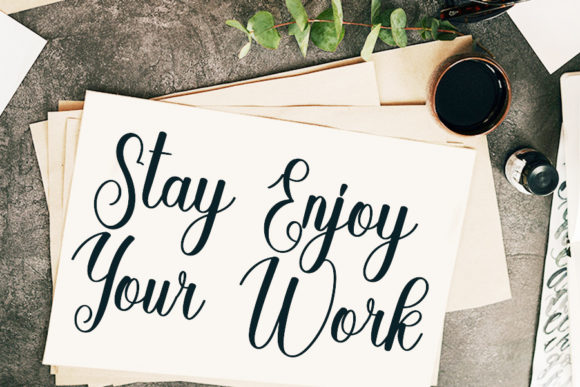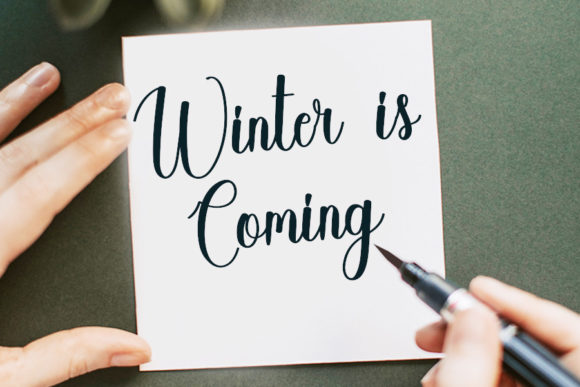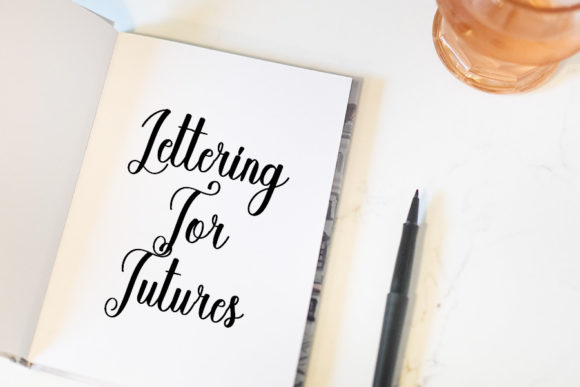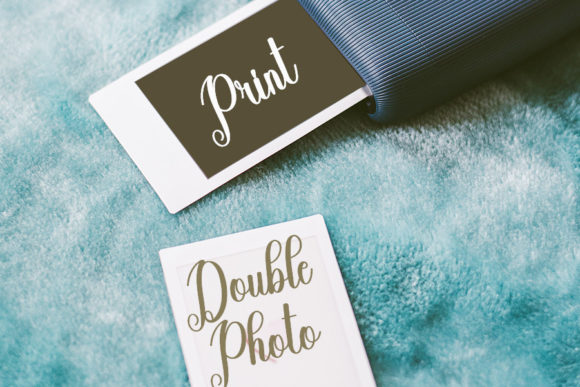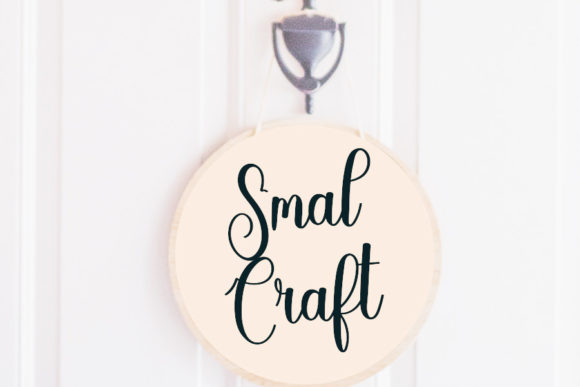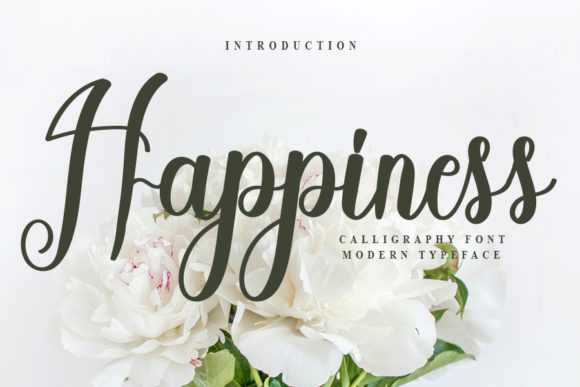
Happiness Font: Elevate Your Designs with a Flowing Script Font
Are you searching for a font that exudes elegance, sophistication, and joy? Look no further than the Happiness Font! This beautiful script font is designed to add a touch of whimsy and romance to your designs, making it perfect for a variety of creative projects. In this article, we’ll dive into the world of Happiness Font and explore its features, uses, and benefits for designers and crafters.
What is Happiness Font?
Happiness Font is a stunning script font that boasts a flowing and graceful style. Its ravishing design is sure to capture the attention of your audience and leave a lasting impression. With its elegant curves and refined lines, this font is ideal for creating gorgeous wedding invitations, beautiful stationery art, eye-catching social media posts, and much more.
Key Features of Happiness Font
- Flowing Script Style: Happiness Font features a beautiful, flowing script style that adds a touch of elegance to any design.
- Highly Readable: Despite its ornate design, Happiness Font is highly readable, making it perfect for use in a variety of applications.
- Versatile: This font can be used for a wide range of projects, from wedding invitations and stationery to social media posts and branding materials.
- Easily Customizable: Happiness Font can be easily customized to fit your design needs, allowing you to adjust the size, color, and style to suit your project.
Uses of Happiness Font
Happiness Font is an incredibly versatile font that can be used for a wide range of projects, including:
- Wedding Invitations: Create stunning wedding invitations that set the tone for a beautiful and memorable day.
- Stationery Art: Add a touch of elegance to your stationery with Happiness Font, perfect for creating beautiful greeting cards, letters, and more.
- Social Media Posts: Make your social media posts stand out with Happiness Font, ideal for creating eye-catching graphics and quotes.
- Branding Materials: Use Happiness Font to create beautiful branding materials, such as logos, business cards, and letterheads.
Benefits of Using Happiness Font
So why choose Happiness Font for your design projects? Here are just a few benefits of using this beautiful script font:
- Adds Elegance and Sophistication: Happiness Font adds a touch of elegance and sophistication to any design, making it perfect for high-end branding and marketing materials.
- Sets You Apart: With its unique and flowing script style, Happiness Font helps you stand out from the crowd and create designs that are truly memorable.
- Easy to Use: Happiness Font is incredibly easy to use, with a simple and intuitive design that makes it easy to customize and adjust to fit your needs.
Tips for Using Happiness Font
Here are a few tips for getting the most out of Happiness Font:
- Pair with a Simple Font: Pair Happiness Font with a simple font to create a beautiful contrast and add visual interest to your design.
- Experiment with Colors: Don’t be afraid to experiment with different colors and textures to add depth and dimension to your design.
- Use for Headlines and Titles: Happiness Font is perfect for use in headlines and titles, where its elegant and flowing style can really shine.
In conclusion, Happiness Font is a beautiful and versatile script font that is perfect for designers and crafters looking to add a touch of elegance and sophistication to their designs. With its flowing and graceful style, highly readable design, and ease of use, Happiness Font is an excellent choice for a wide range of projects, from wedding invitations and stationery to social media posts and branding materials. So why wait? Download Happiness Font today and start creating stunning designs that will leave a lasting impression!